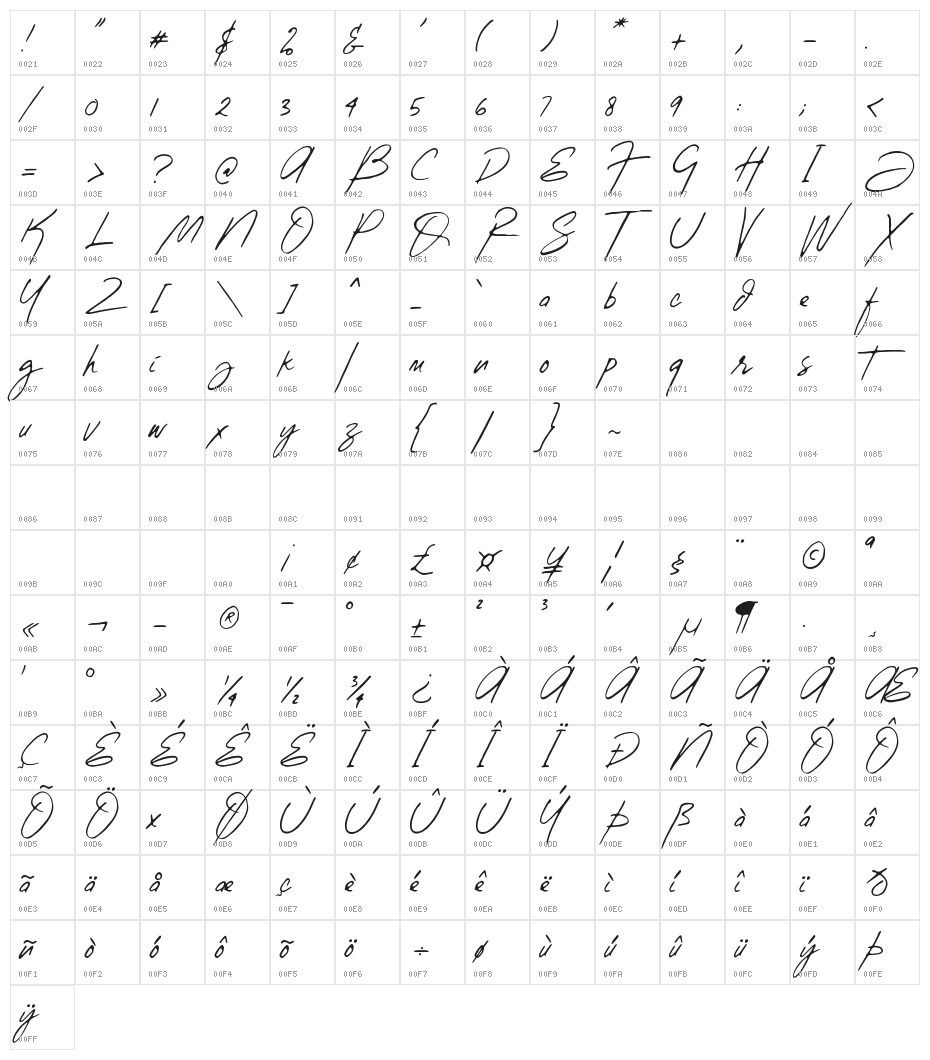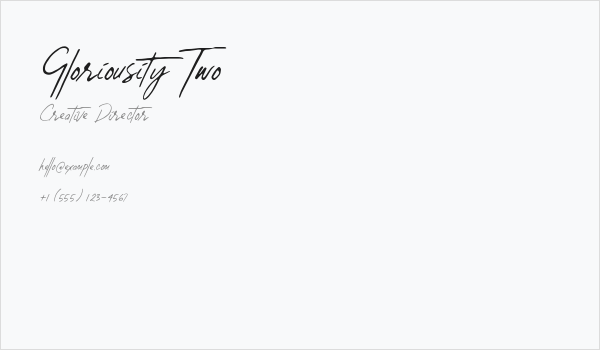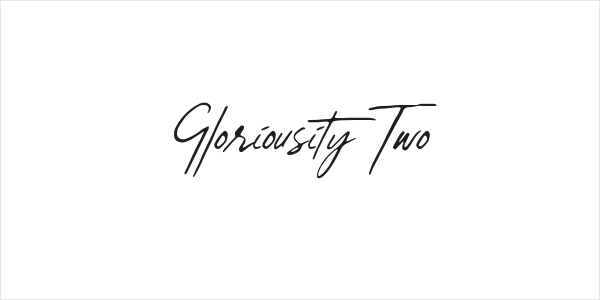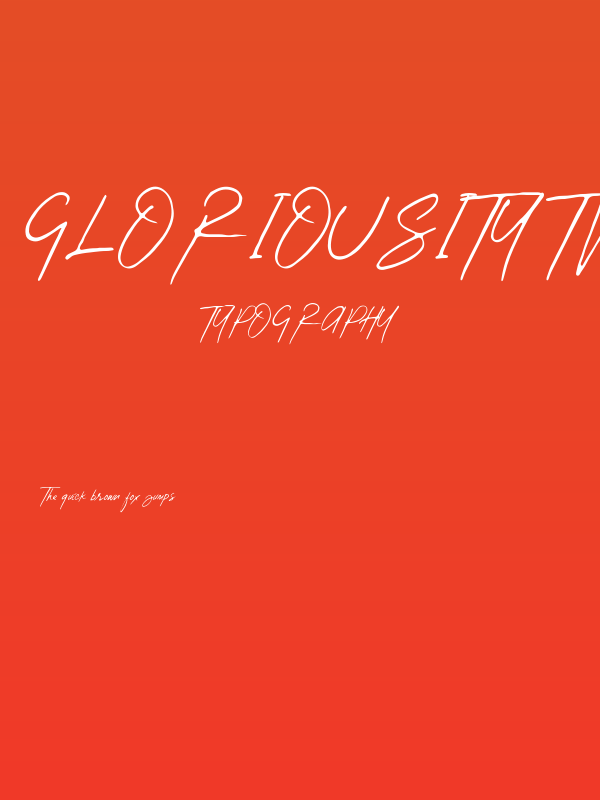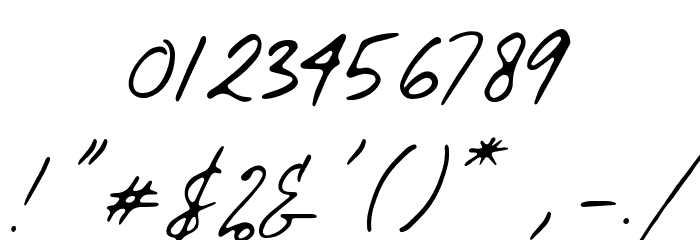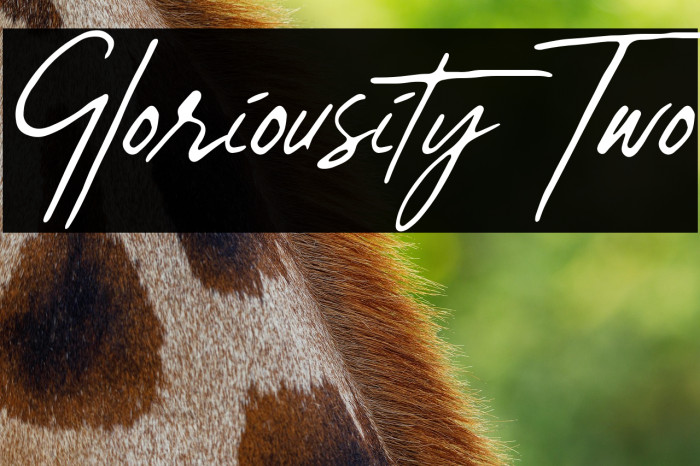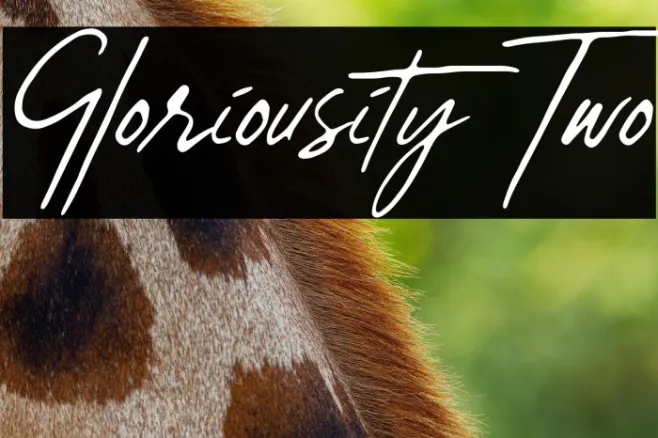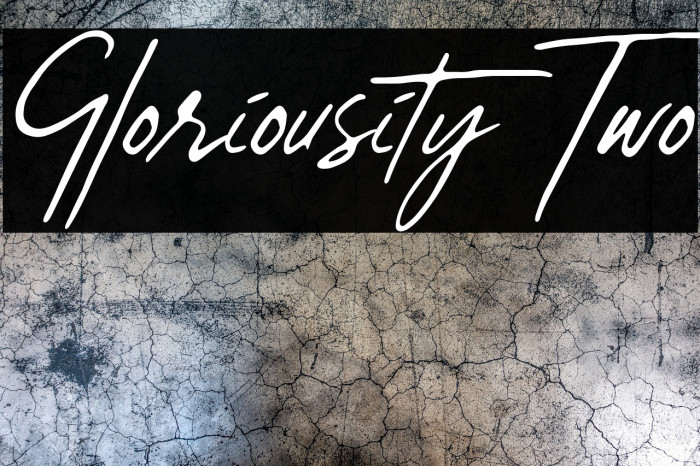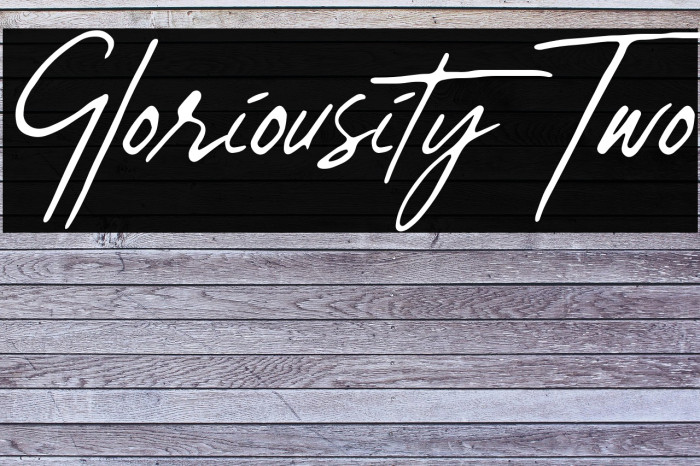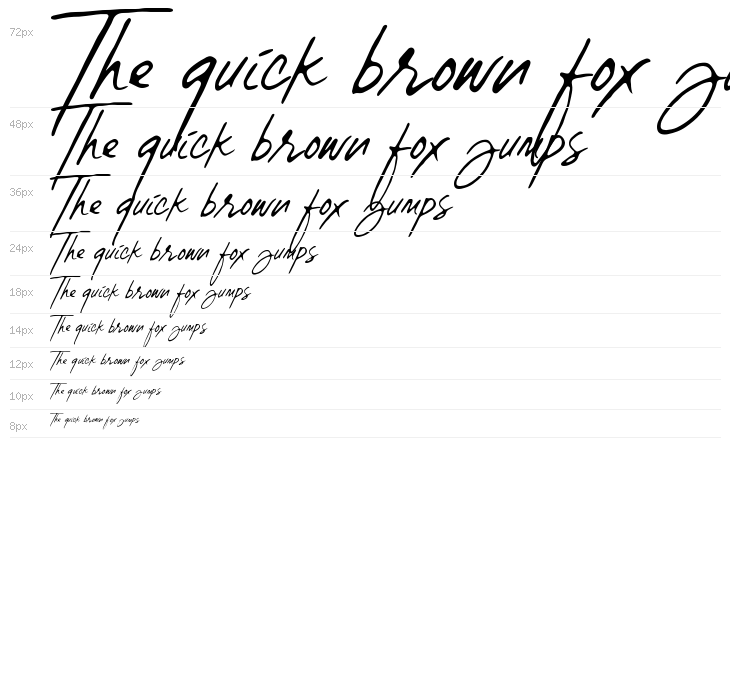
Gloriousity Two Font
Gloriousity Two Description
This font exudes a dynamic and energetic feel with its fluid, cursive style. The letters are interconnected, creating a seamless flow that mimics natural handwriting. The uppercase letters are tall and slightly slanted, while the lowercase letters maintain a consistent rhythm and balance. The numbers are clear and legible, matching the overall style of the alphabet. Special characters are thoughtfully designed to integrate smoothly with the text. The strokes vary in thickness, adding a touch of elegance and sophistication. This font is perfect for projects that require a personal, handwritten touch.
| Proposed Projects | Ideal for wedding invitations, personal branding, greeting cards, and artistic projects. |